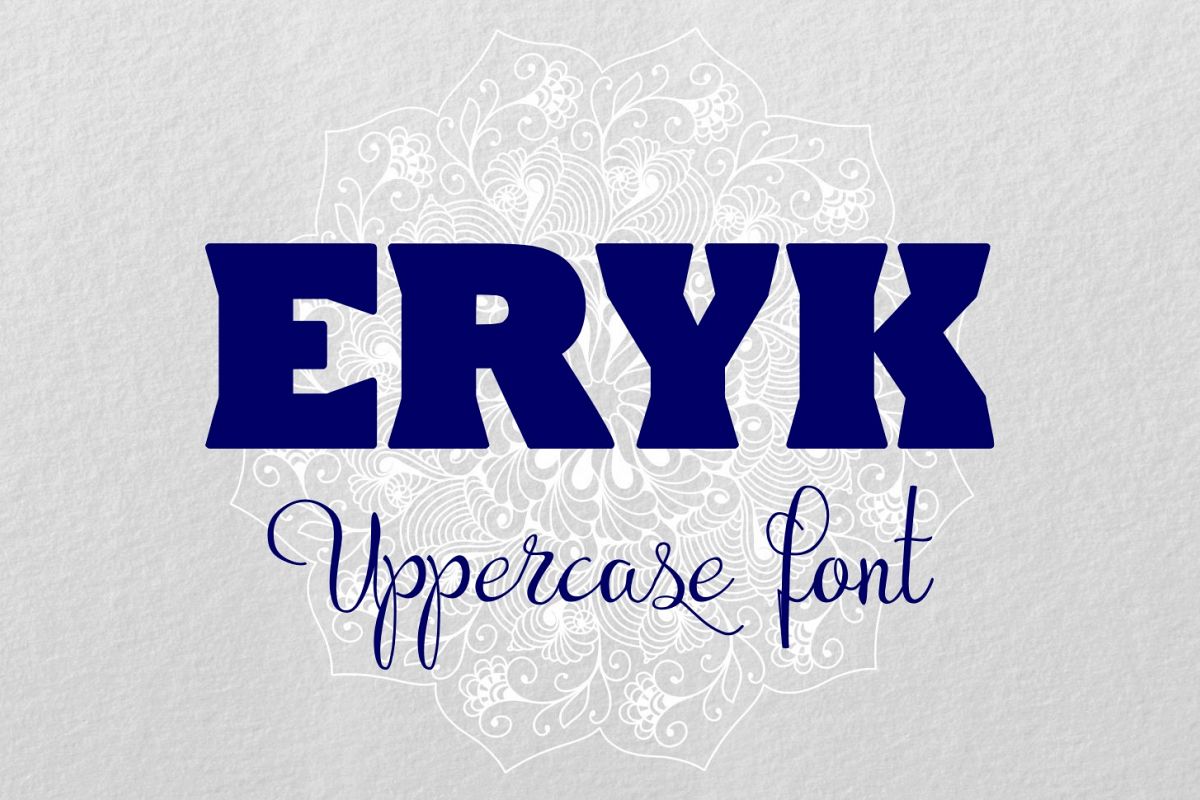
Eryk
Introducing Eryk uppercase font.
Eryk is perfect choice for, logos, brandings, book covers, titling, signage, poster, flyers, calendars, headlines, businnes cards and other printed stationeries.